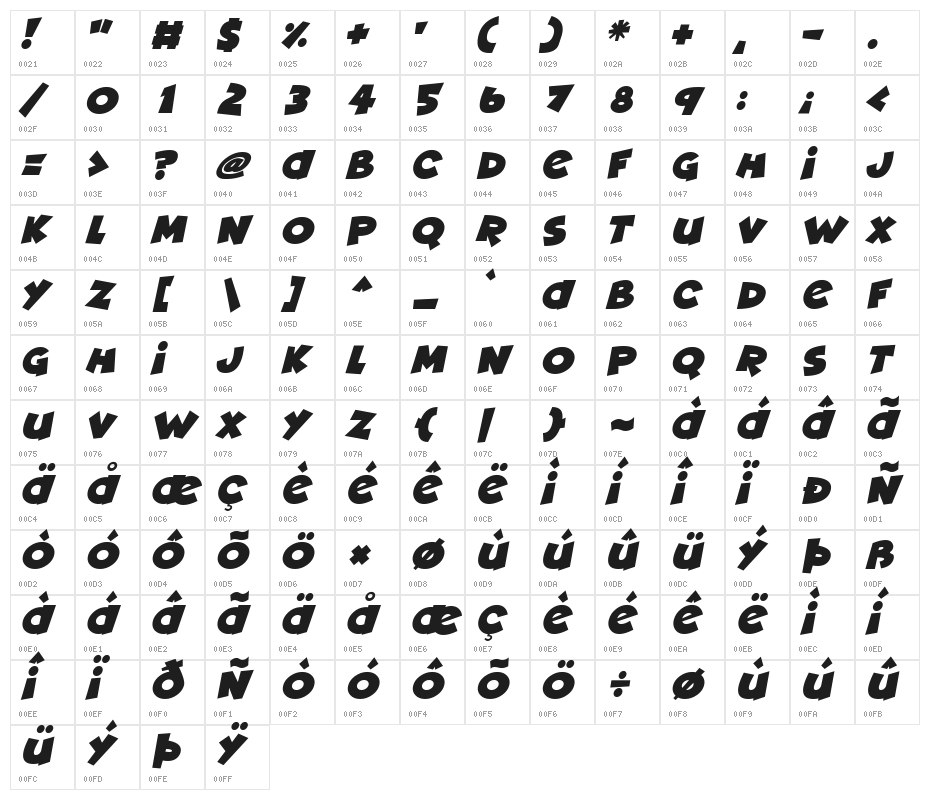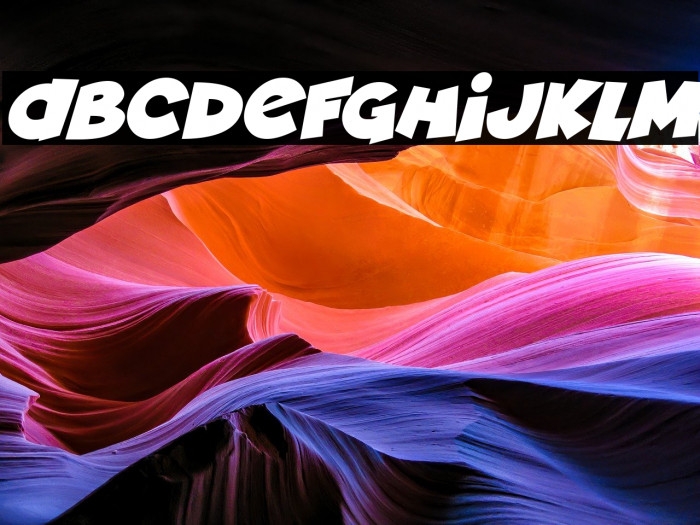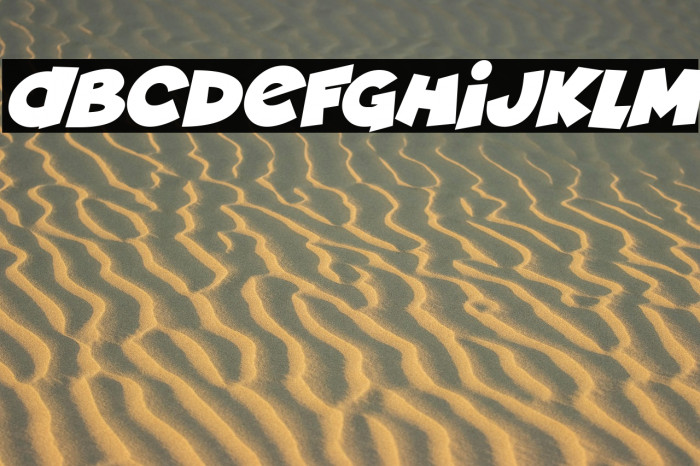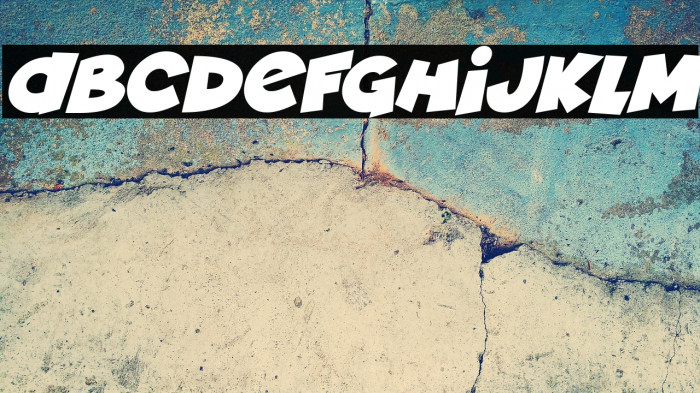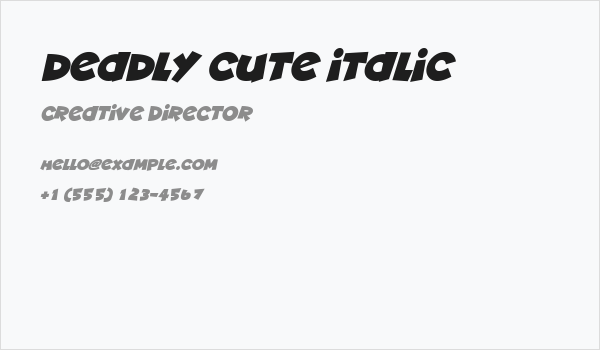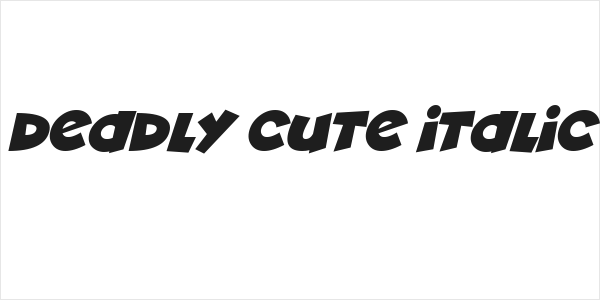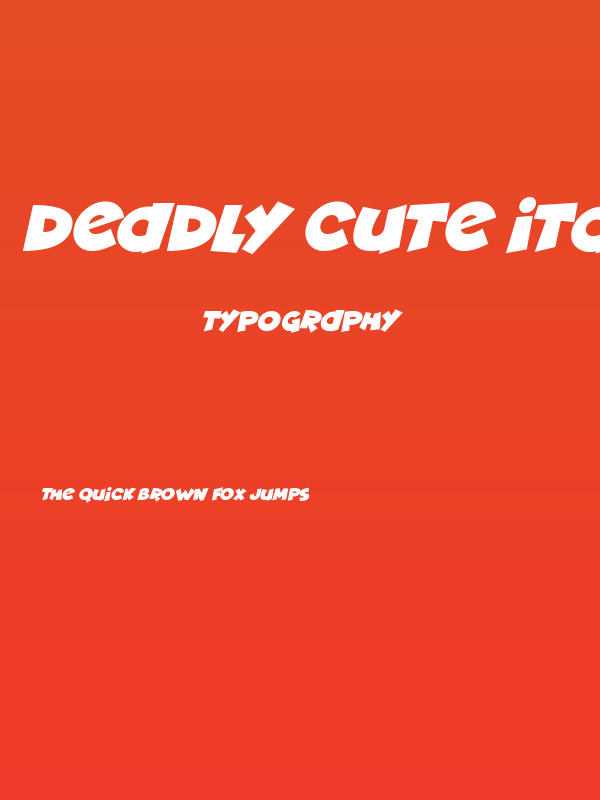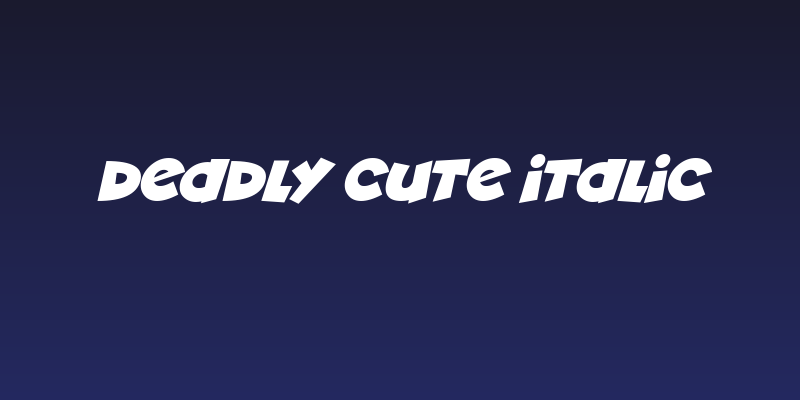
Deadly Cute Italic Font
Deadly Cute Italic Description
This playful and bold typeface features a dynamic, italicized style with exaggerated angles and a strong presence. The characters are thick and robust, with a slightly condensed appearance that enhances their boldness. The uppercase and lowercase letters maintain a consistent style, with sharp edges and a sense of movement, making them ideal for attention-grabbing designs. The numerals and special characters follow the same aesthetic, ensuring a cohesive look across all text elements. This font exudes energy and creativity, making it perfect for projects that require a fun and lively touch.
| Overall Style | Playful, Energetic |
| Proposed Projects | Ideal for comic book titles, children's book covers, playful branding, and eye-catching posters. |